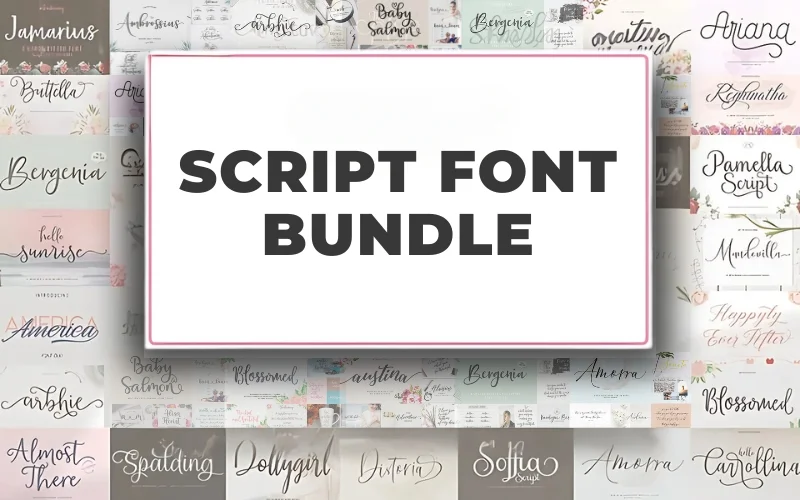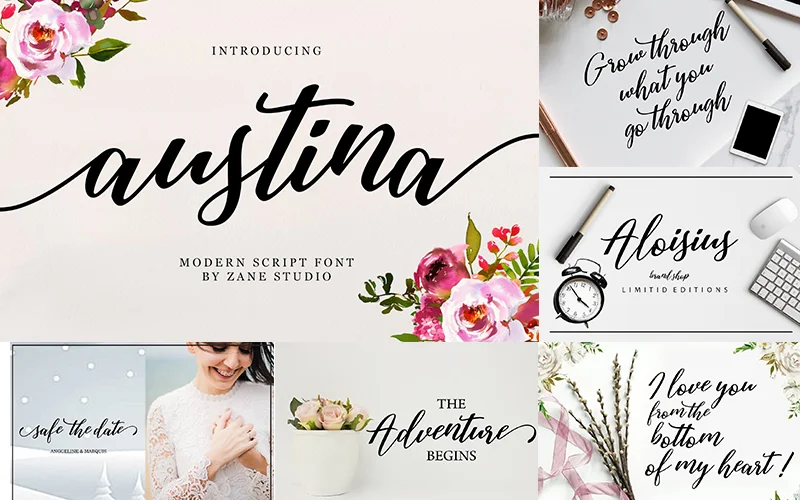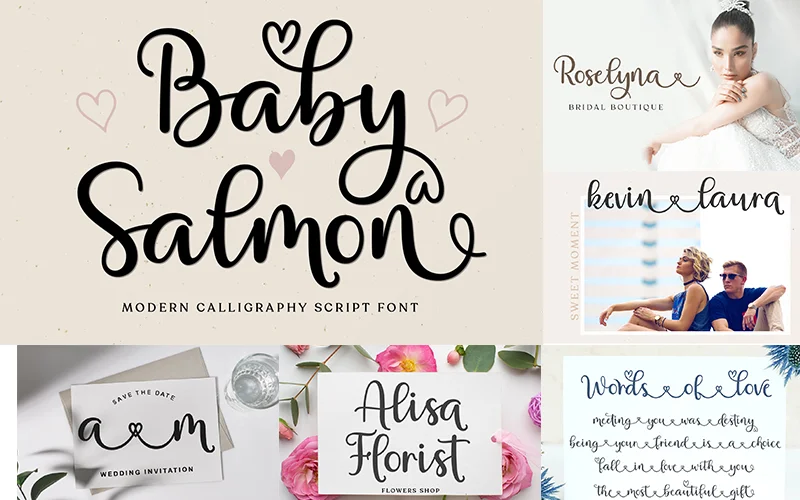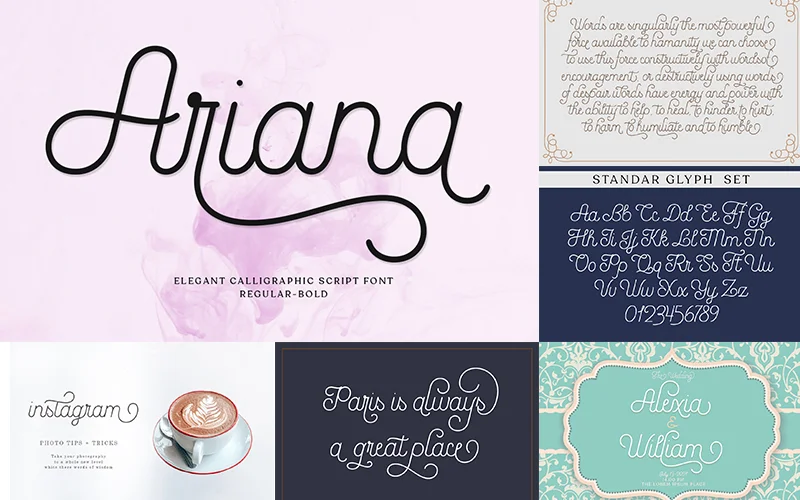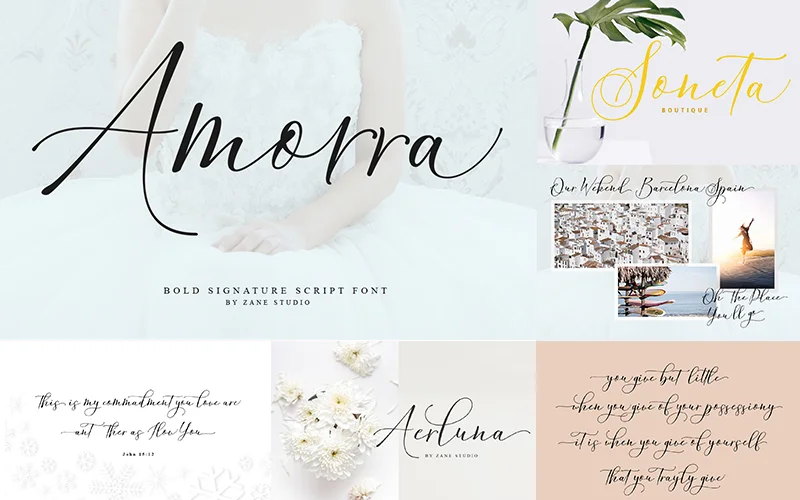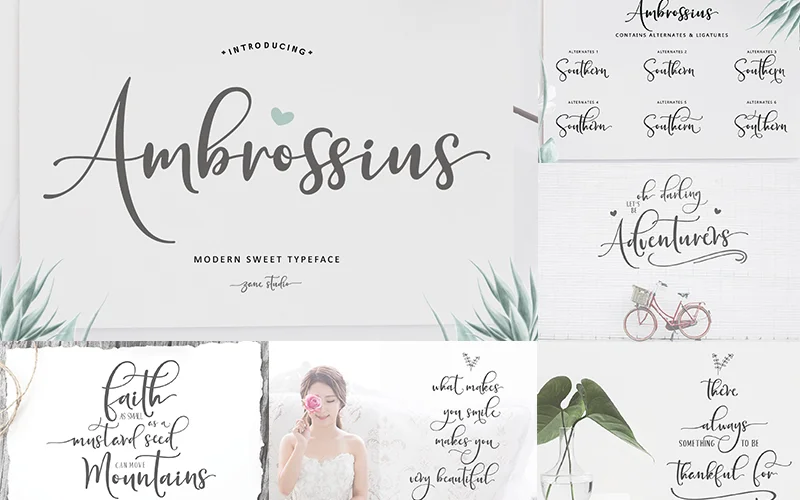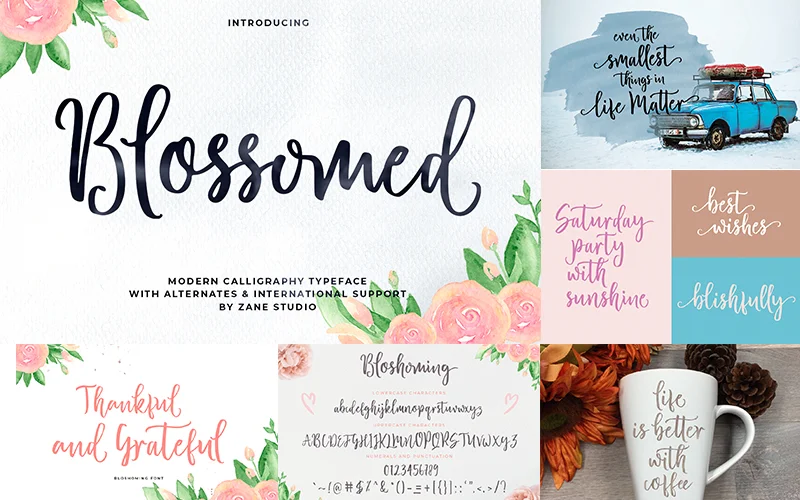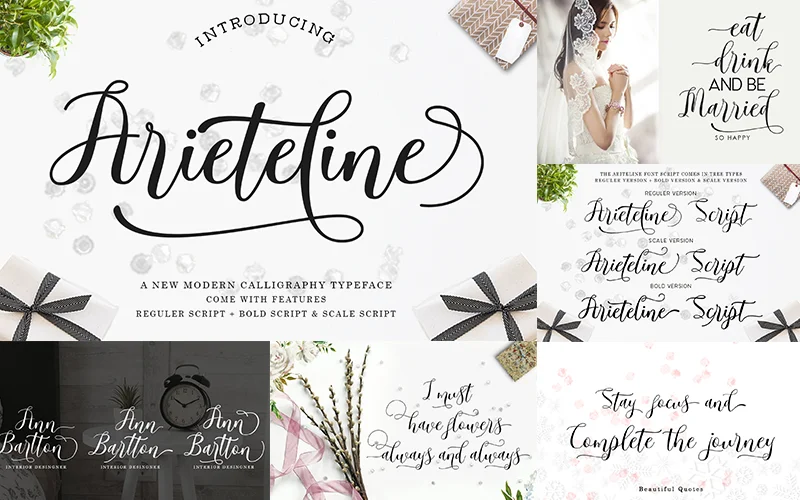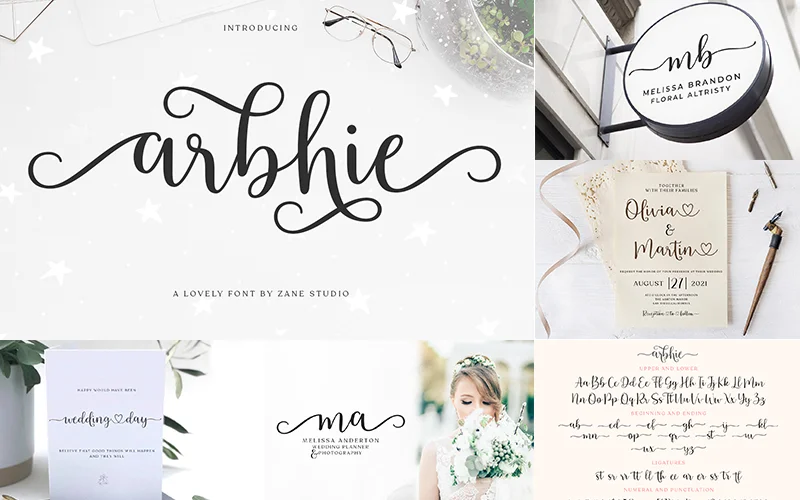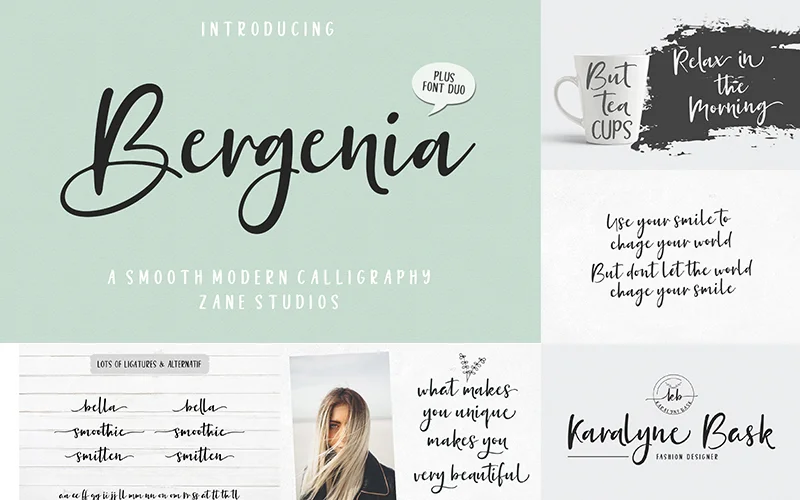
• Multiple font styles: calligraphy, brush, signature, and more.
• Supports international languages and glyph variations.
Script Font Bundle
Script Font Bundle is a collection of 59-fonts including calligraphy, signature, brush lettering, and hand lettering fonts.
Every font comes with hundreds of glyphs, including alternates, binders, and sweeps, to ensure complete flexibility.
Whether you’re designing for branding, merchandise, social media, or print, this font bundle is an essential resource for any creative professional.
• Almost There
• Ambrossius
• America Font Duo
• Amorra
• Arbhie
• Ariana
• Arieteline
• Austina
• Baby Salmon
• Beautymoon
• Bergenia Font Duo
• Blossomed
• Bottom Love
• Buttella
• Hello Carrolina
• Distoria
• Dollygirl
• Fallery
• Hello Gorgeous Font Trio
• Girl Love
• Glaudia
• The Glisten
• Happyly Ever After
• Heaven Children
• Houlding
• Jamarius
• Mandevilla
• Pamella
• Ratherbe
• Reginatha
• Hello Sherilyn
• Soffia
• Spalding
• Hello Sunrise
• Sweet Bloom
Image showcasing calligraphy script fonts
Bold Signature Script Font
Script Font Bundle fonts collage
Elegant Calligraphic Script Font
Modern Calligraphy Typeface Font
Modern Script Font
Modern Calligraphy Script Font Bundle
Smooth Calligraphy Font bundle
Modern CALLIGRAPHY Typeface